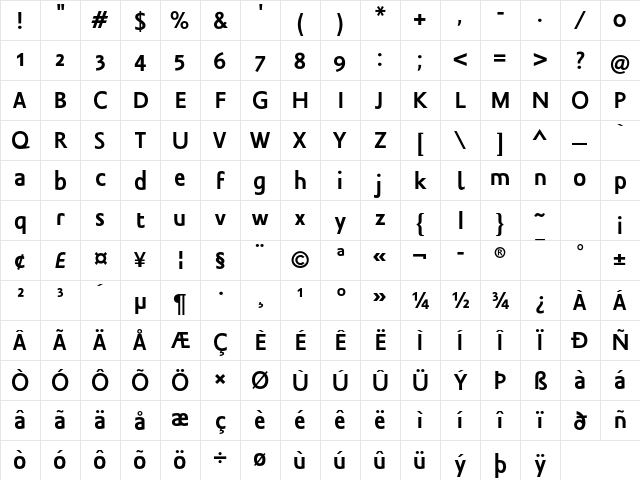
Legal LT Std Bold
Designer: Hellmut G. Bomm
Design Context for Legal LT Std
Legal LT Std is a composed and adaptable typeface that performs quietly and consistently across a wide range of design contexts. Its bold stroke weight gives it real presence on the page.